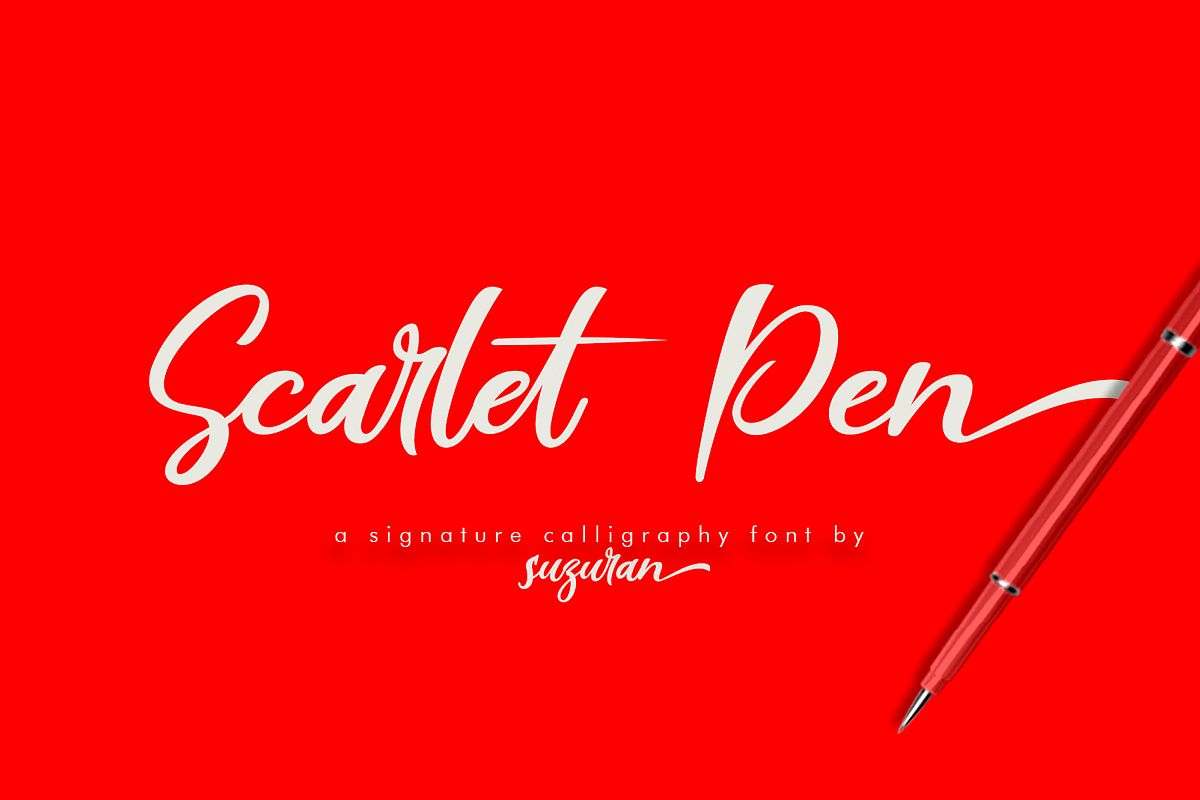
Scarlet Pen Script
Introducing the Scarlet Pen script, a font that is very fresh and unique style handmade + bonus font, Night in Kansas & Free Pen Script for your project. Scarlet Pen script is perfectly suited to logo, stationery, poster, apparel, branding, wedding invitation, card, tagline, layout design, and much more !!.